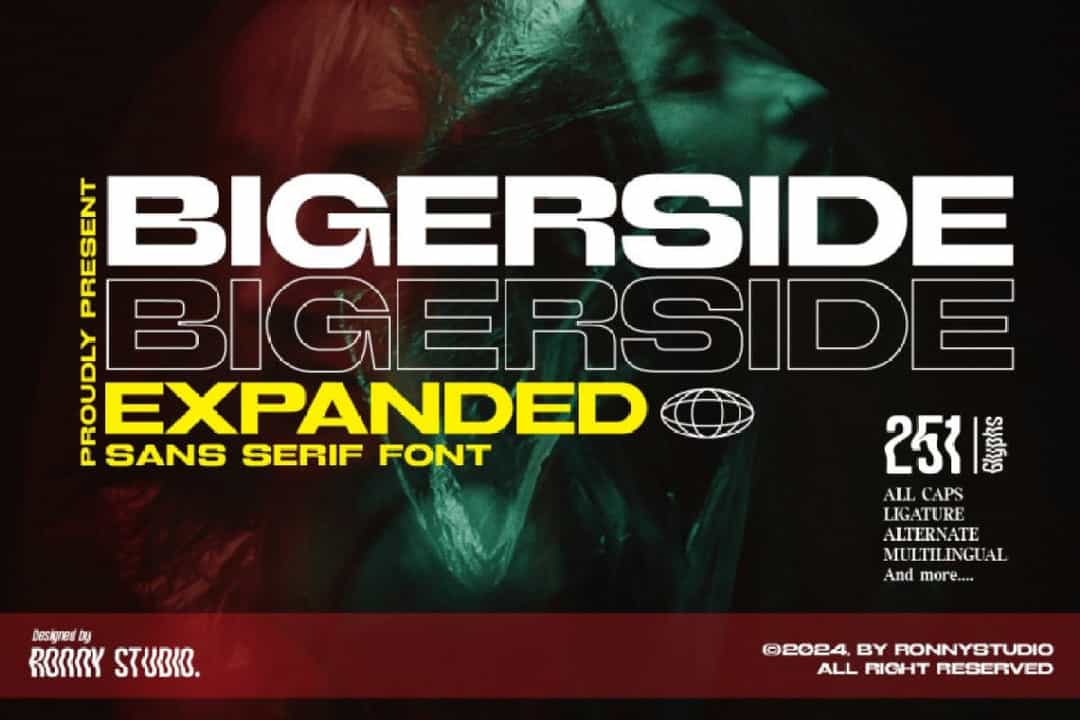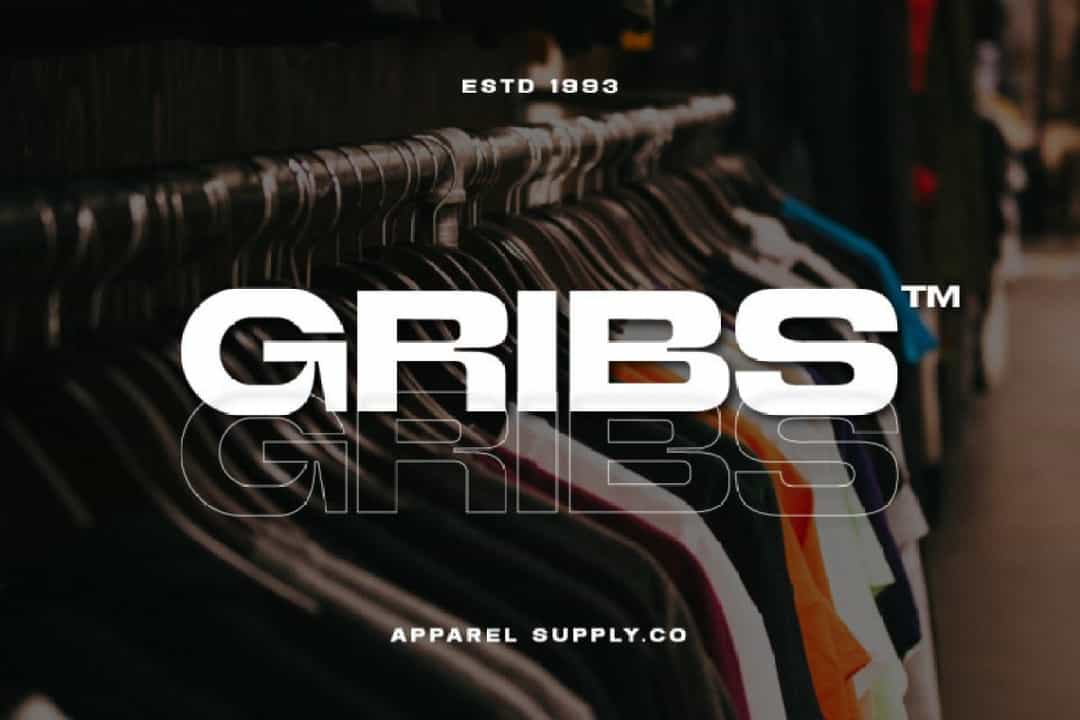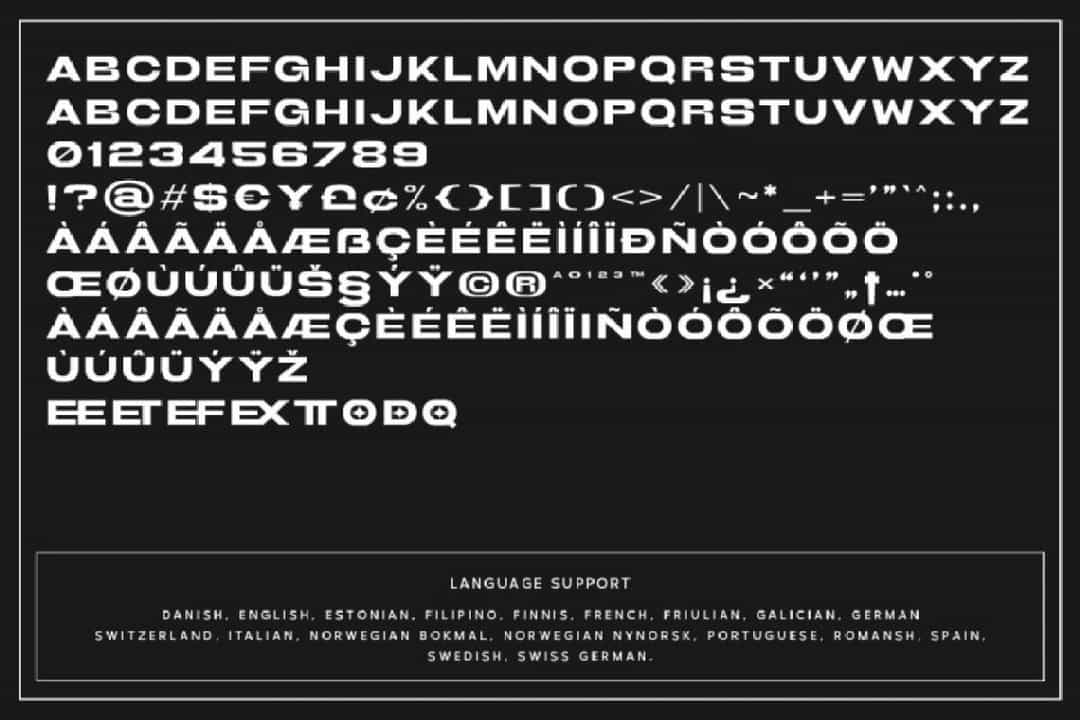
Bigerside is an all-caps sans serif font featuring an extremely bold body, but has great contrast between its bold body and striking design shades. This font boasts crisp and sophisticated letterforms designed professionally, which allows it to blend in beautifully with various designs that require its unique style.